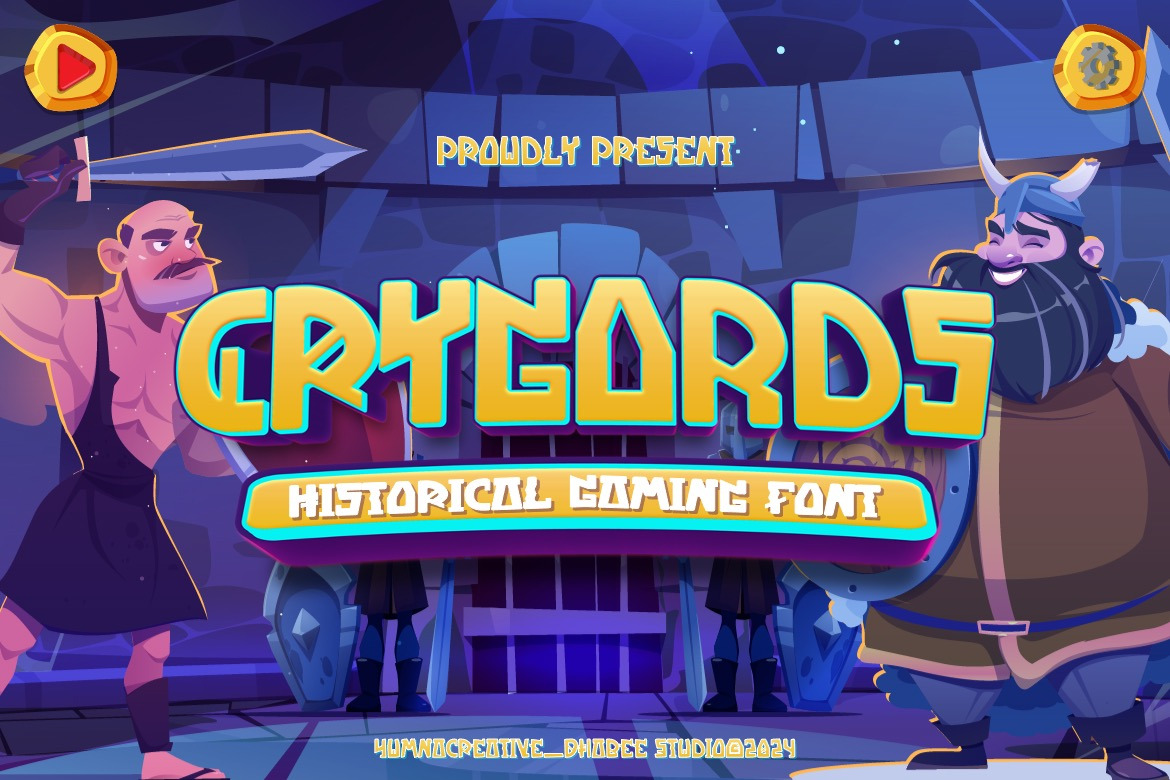
Crygords - Historical Gaming Font
Introducing Crygords - Historical Gaming Font
This Font is a delicate, elegant and flowing handwritten font. It has beautiful and well as a unique blend of ligatures a letter, so that the authors compose it with a and little swirly embedding, so that a modern font is formed and ready to make a statement by adding elegant and unique flair to your next design project. Add it to your most creative ideas and notice how it makes them come alive!